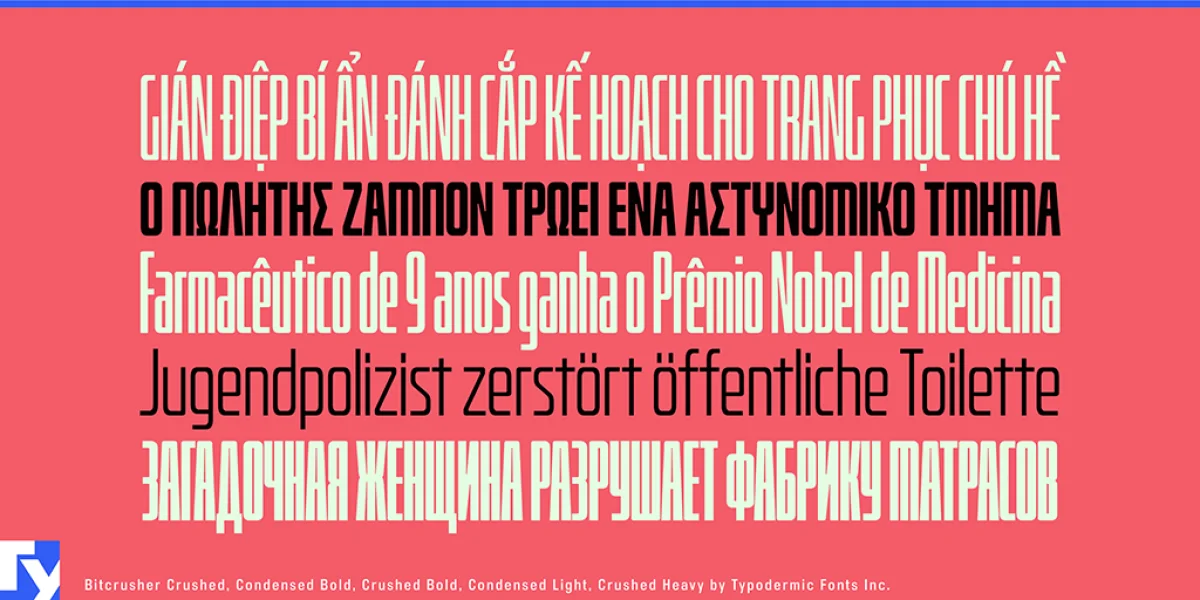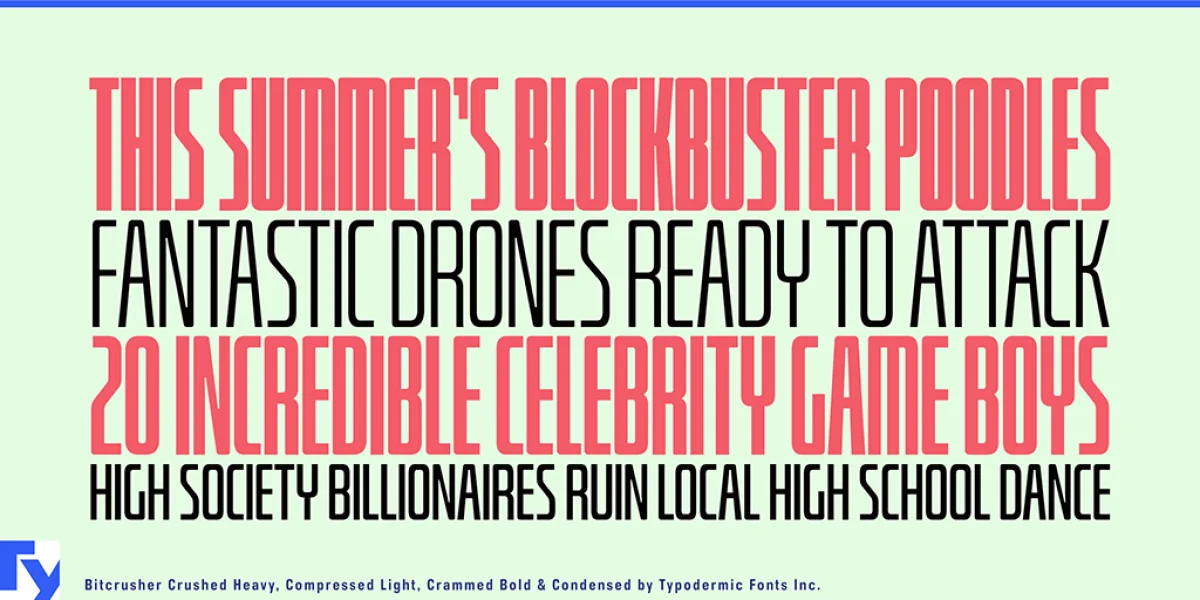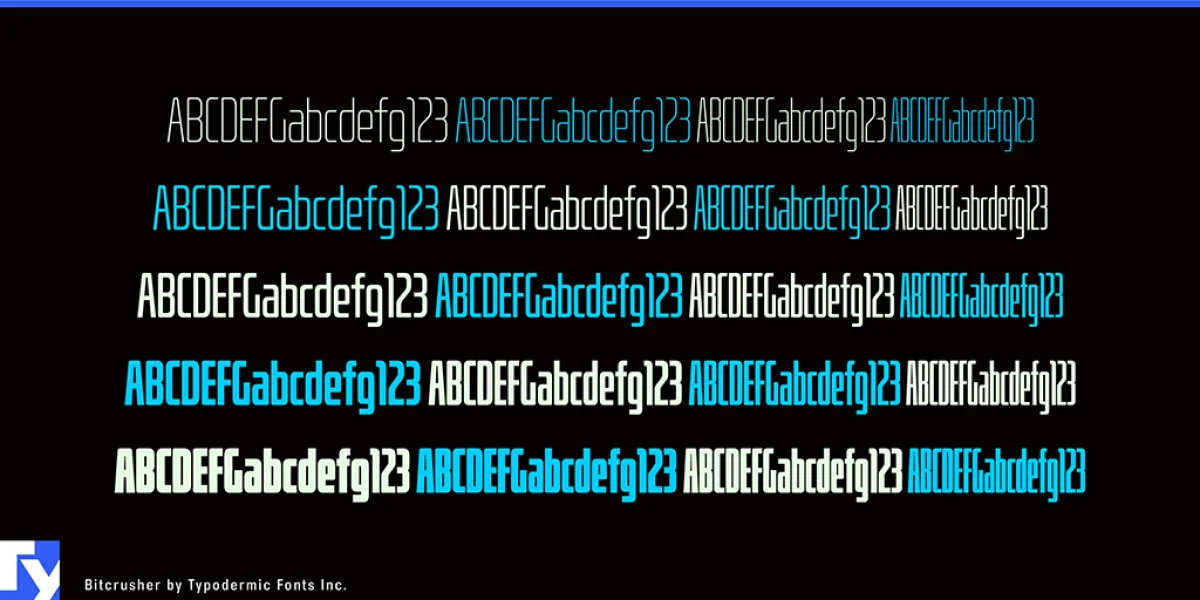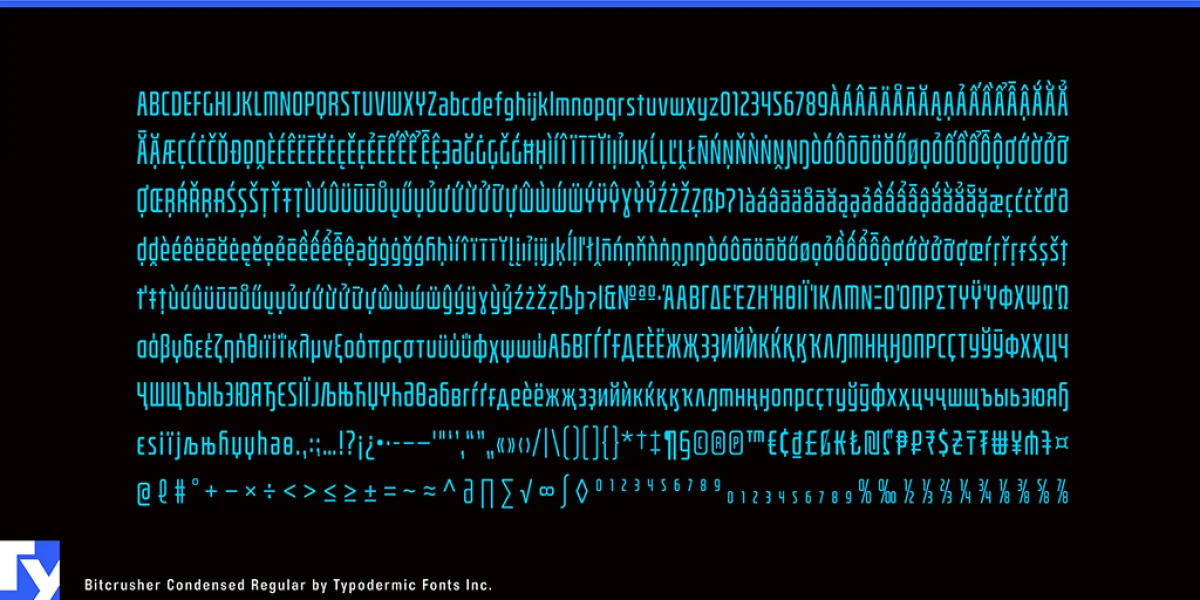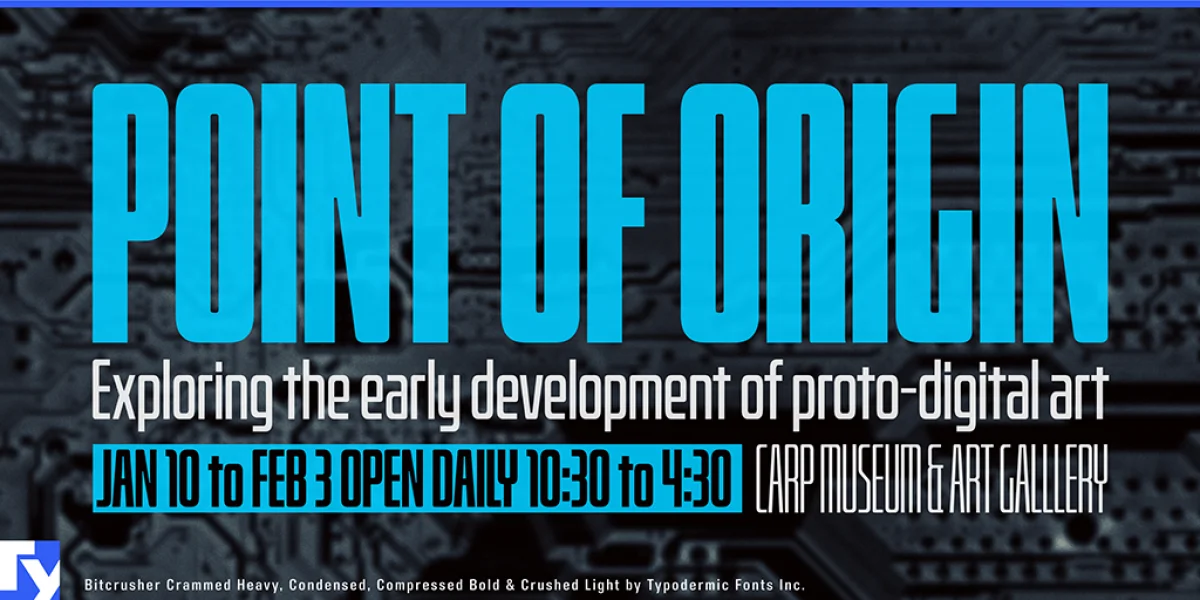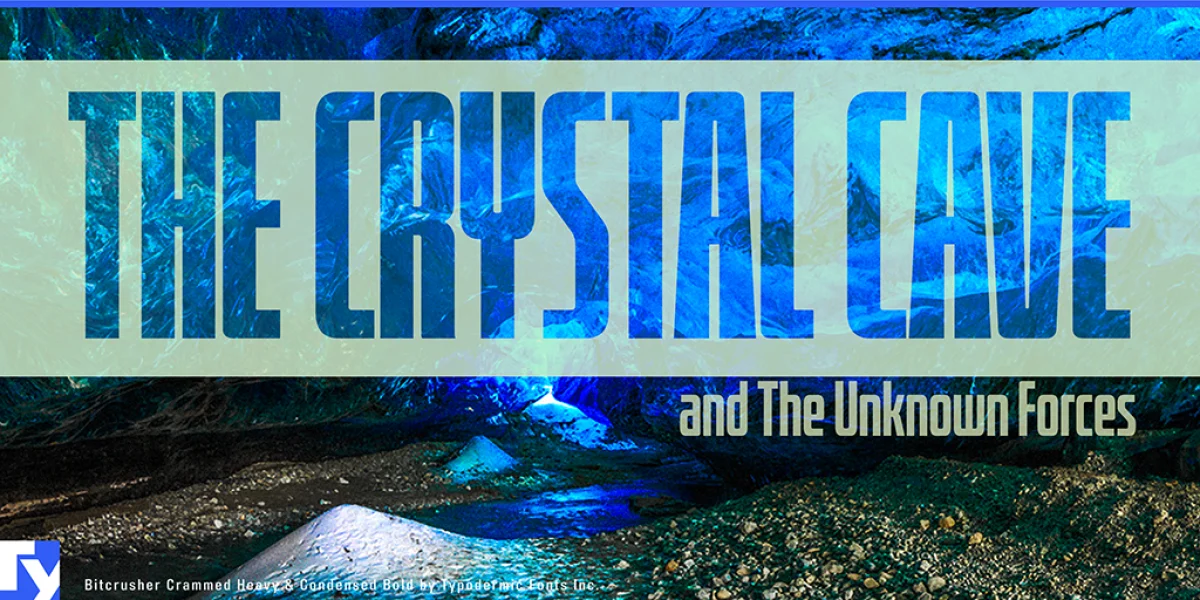
Bitcrusher is an ultramodern, ultra-compact sans-serif typeface influenced by contemporary vehicle design and consumer electronics. It was designed for maximum compression, allowing you to fit more words in a line than techno typefaces normally allow. Bitcrusher is available in 5 weights an 4 widths. Condensed is pretty tight. Compressed is at the normal typeface compression limit. Crammed is unusually compact. Crushed is ludicrously concentrated. Bitcrusher features a stem, space and gap consistency which allows you to break the usual scaling and tracking rules. Do you want thicker stems? Take a narrower width and scale it wider. Want to go tighter than crushed? Scale it even narrower. You can’t break it. Mathematical symbols, fractions, numeric ordinals, and monetary symbols are in good supply. Almost all current Latin-based languages are supported, including Vietnamese, Cyrillic languages and Greek. The commercial use desktop license for Bitcrusher Condensed Bold is free. This font includes a license that allows free commercial use: sometimes referred to as a desktop license. This allows you to install the font on a computer and use them to create posters, web graphics, game graphics, t-shirts, videos, signs, logos and more. Read the license agreement for details. If you'd like to embed this font in an app, on the web or anything that's not covered by the desktop license agreement, visit the link below. You'll find distributors who offer different types of licenses or you can contact me for help.